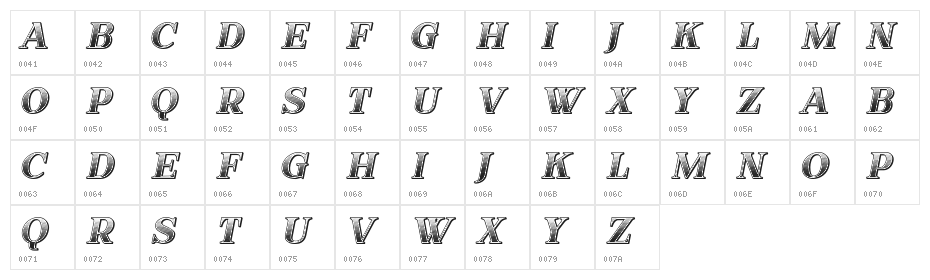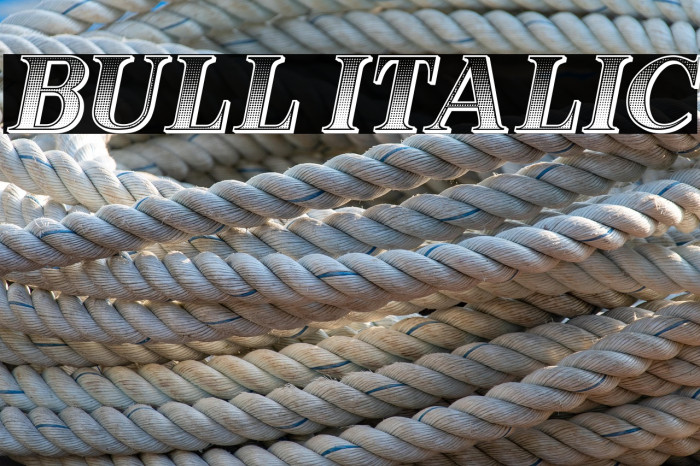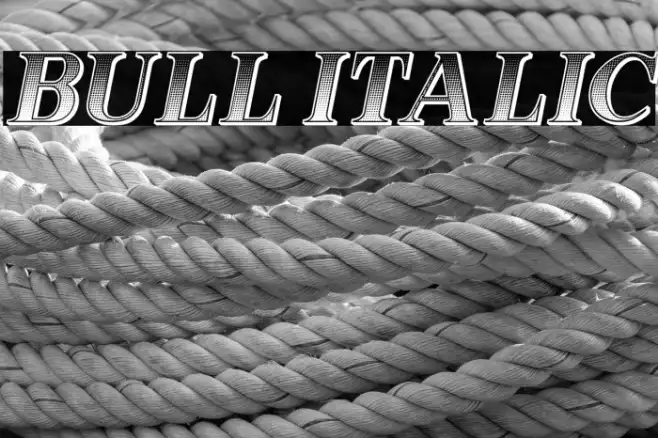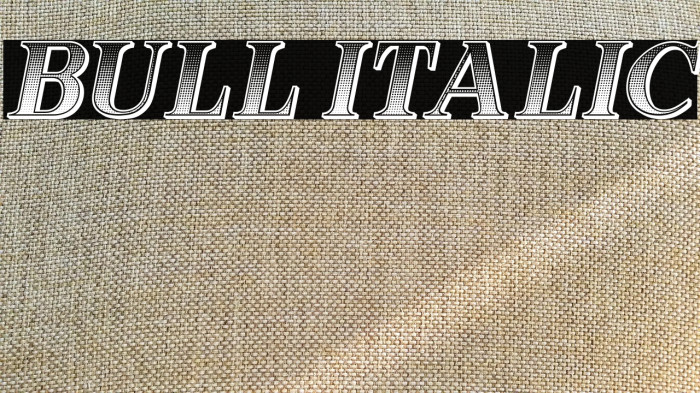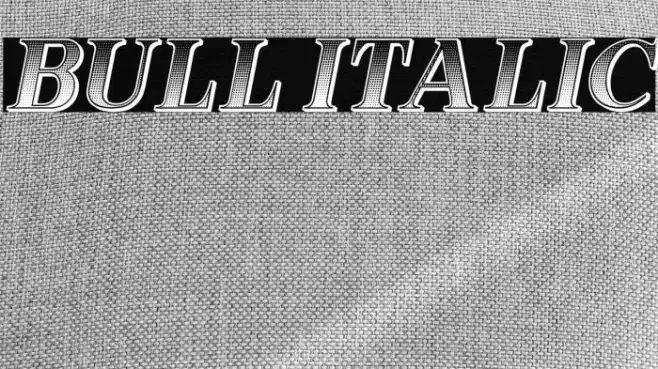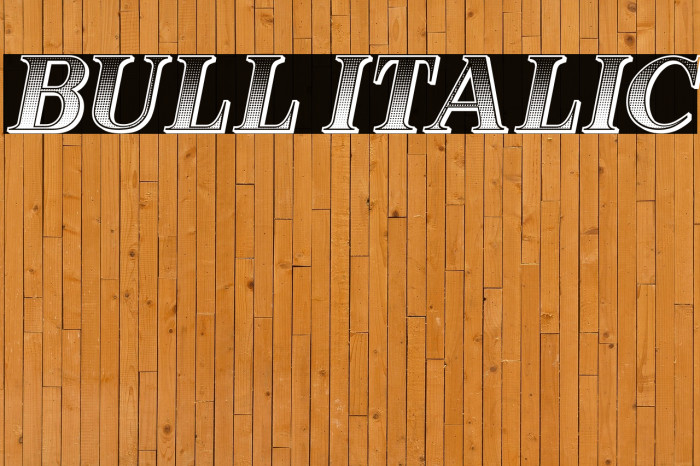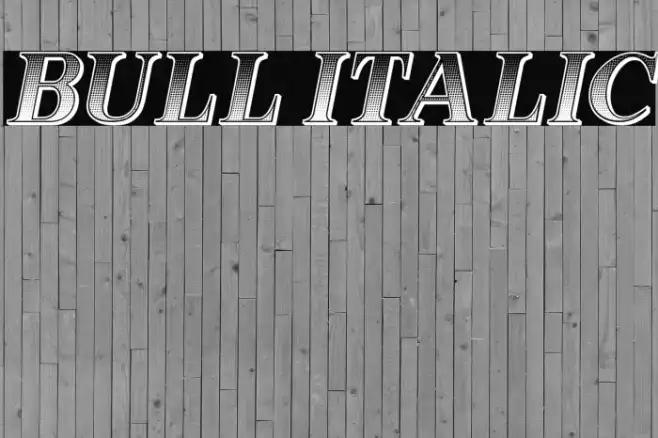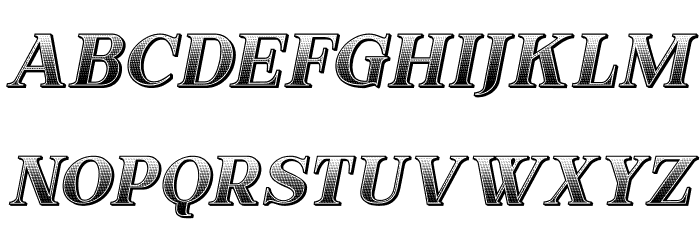
Bull Italic Font
Bull Italic Description
This font features a bold and dynamic italic style with a distinct decorative flair. Each character is outlined with a thick, shadowed stroke that gives it a three-dimensional appearance. The letters are slightly slanted, enhancing the italic effect, and the internal detailing includes a textured pattern that adds depth and visual interest. The uppercase letters are prominent and commanding, making them ideal for attention-grabbing headlines or titles. The overall design is reminiscent of vintage or retro styles, yet it maintains a modern edge through its boldness and intricate detailing.
| Proposed Projects | Ideal for vintage-themed posters, eye-catching headlines, branding materials, and logo designs that require a bold statement. |